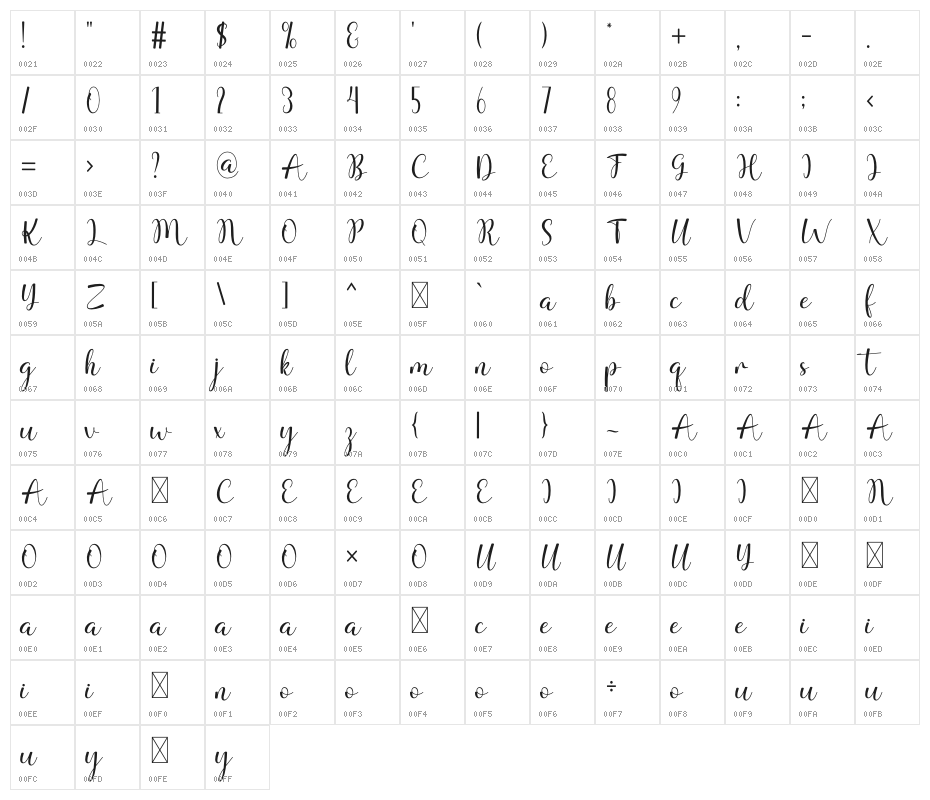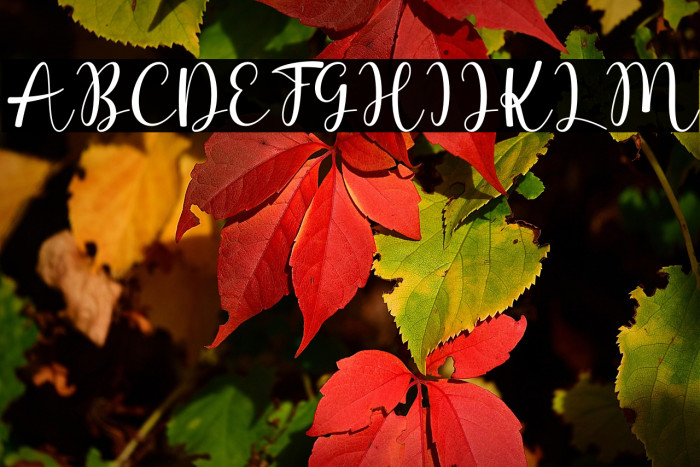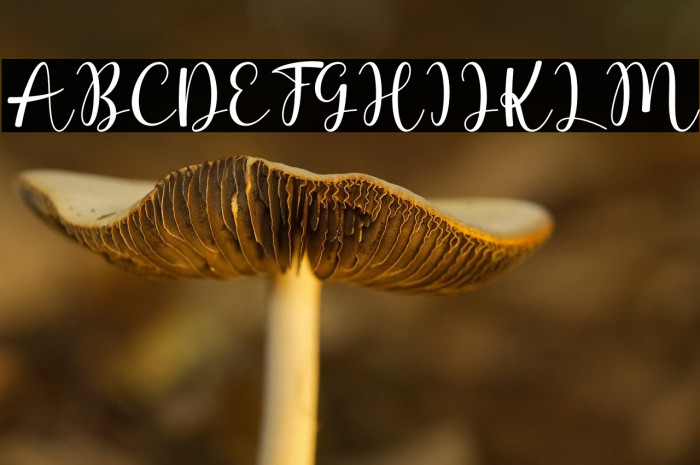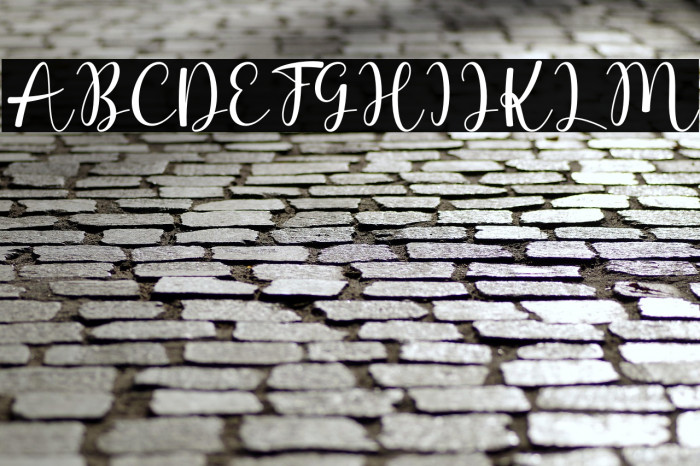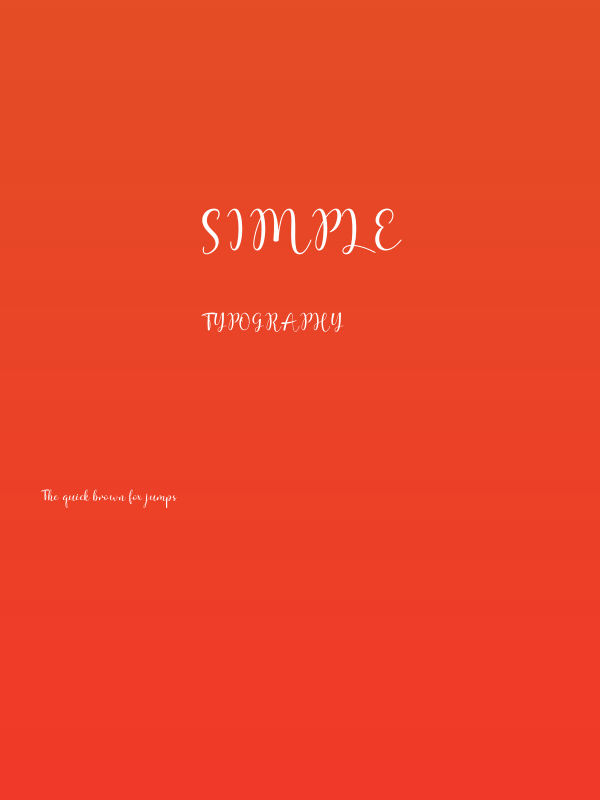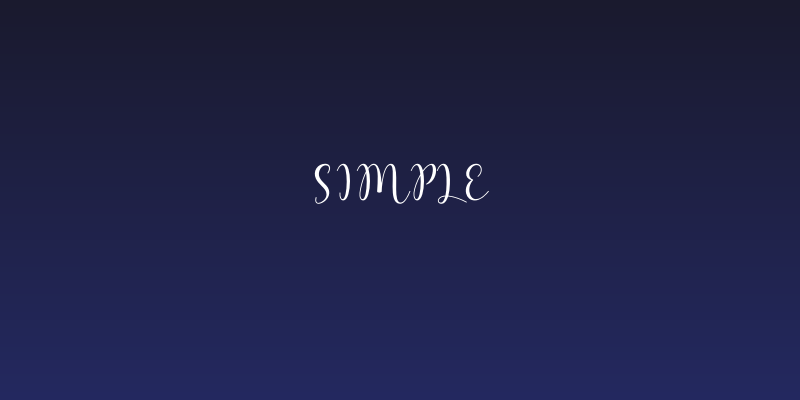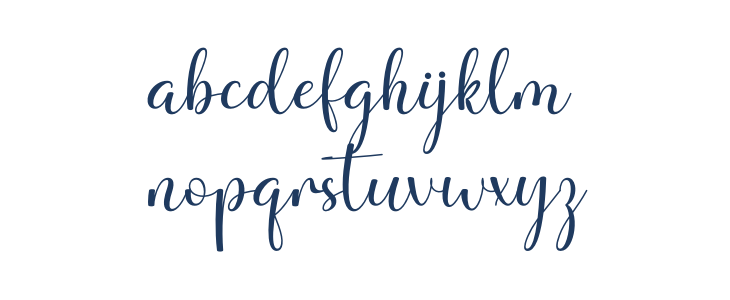
Simple Font
Simple Description
This font features a lively and elegant script style with a smooth, flowing appearance. The uppercase letters are characterized by their tall, slender forms with graceful loops and curves, while the lowercase letters maintain a consistent fluidity, enhancing the overall aesthetic. The numerals are distinct and easy to read, with a slight slant that complements the script style. Special characters are thoughtfully designed to match the elegance of the alphabet, making this font versatile for various applications. The strokes vary in thickness, adding a dynamic contrast that enhances readability and visual interest.
Overall StyleElegant
Use CaseLogos, Invitations, Branding
Proposed ProjectsIdeal for wedding invitations, greeting cards, branding, and elegant packaging designs.